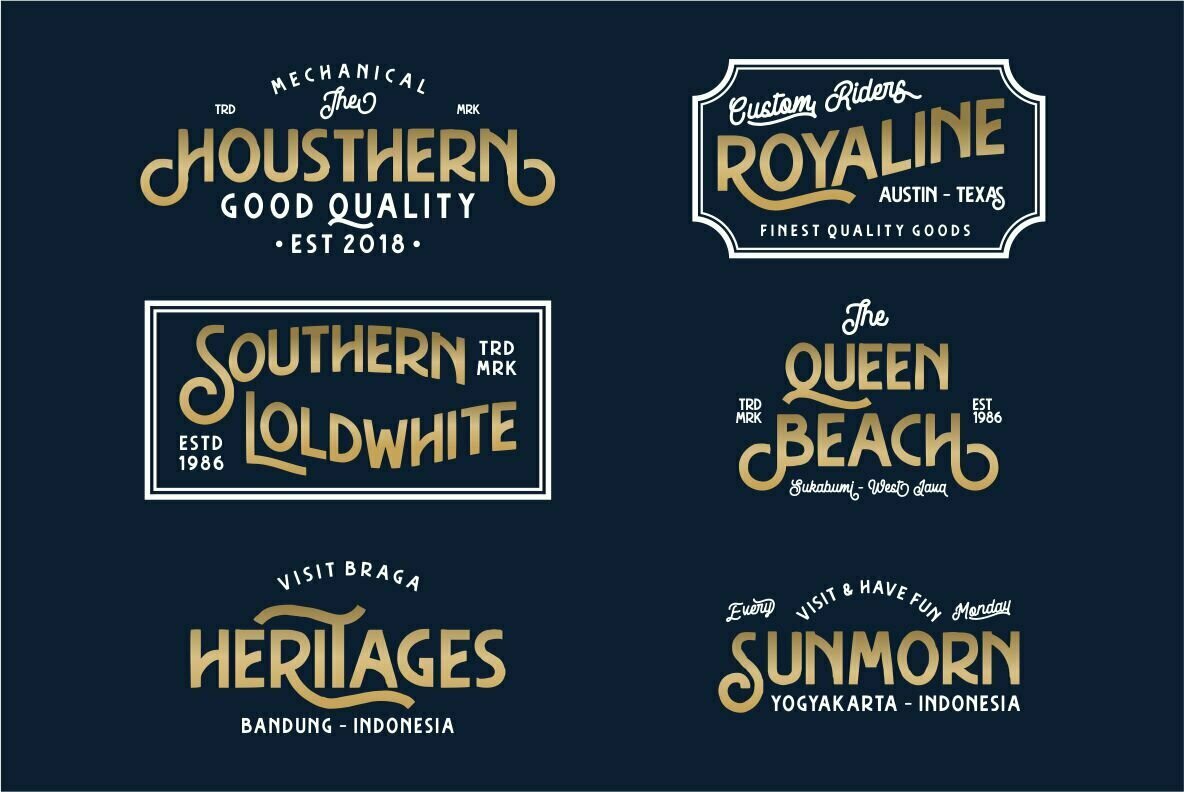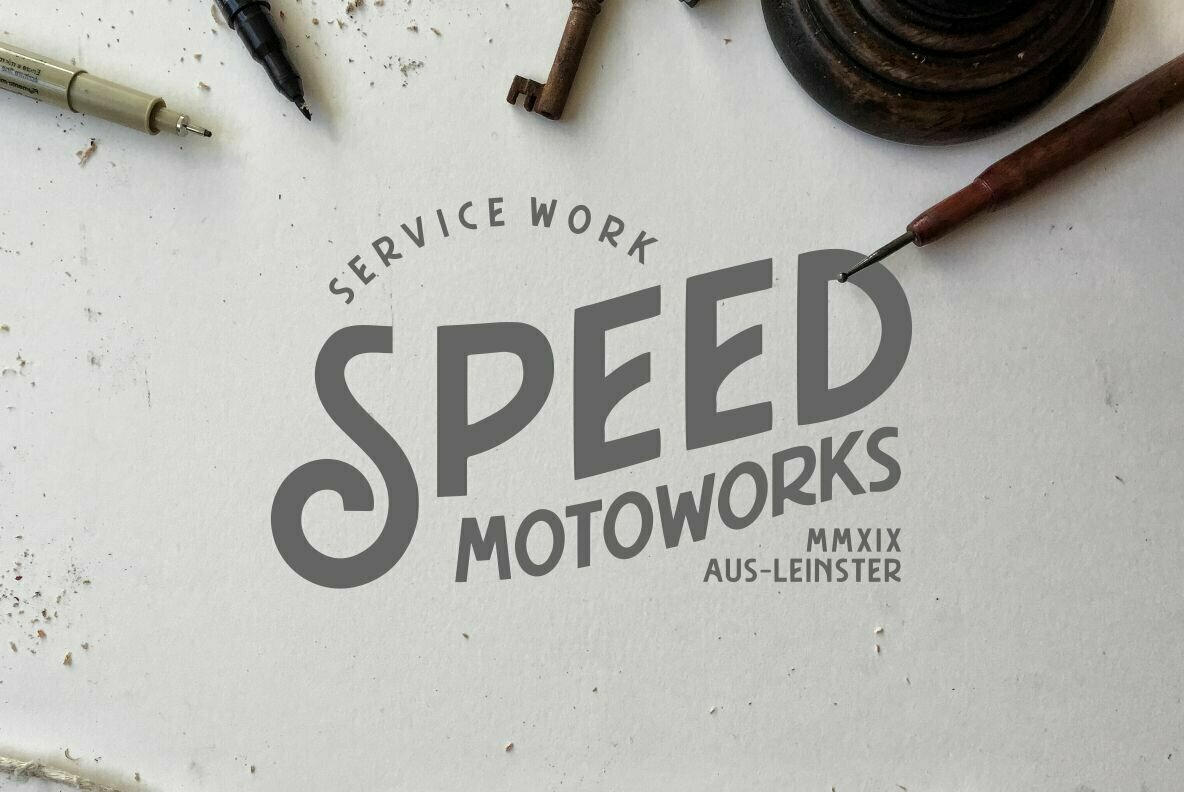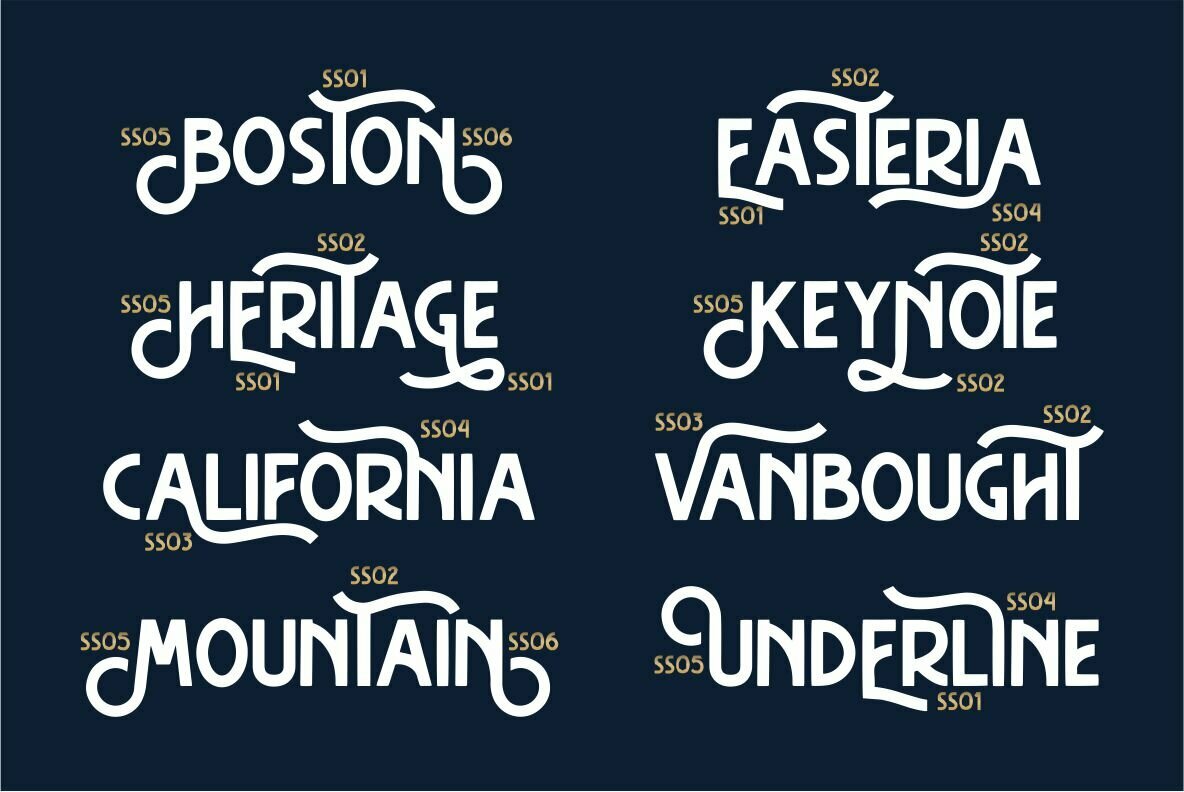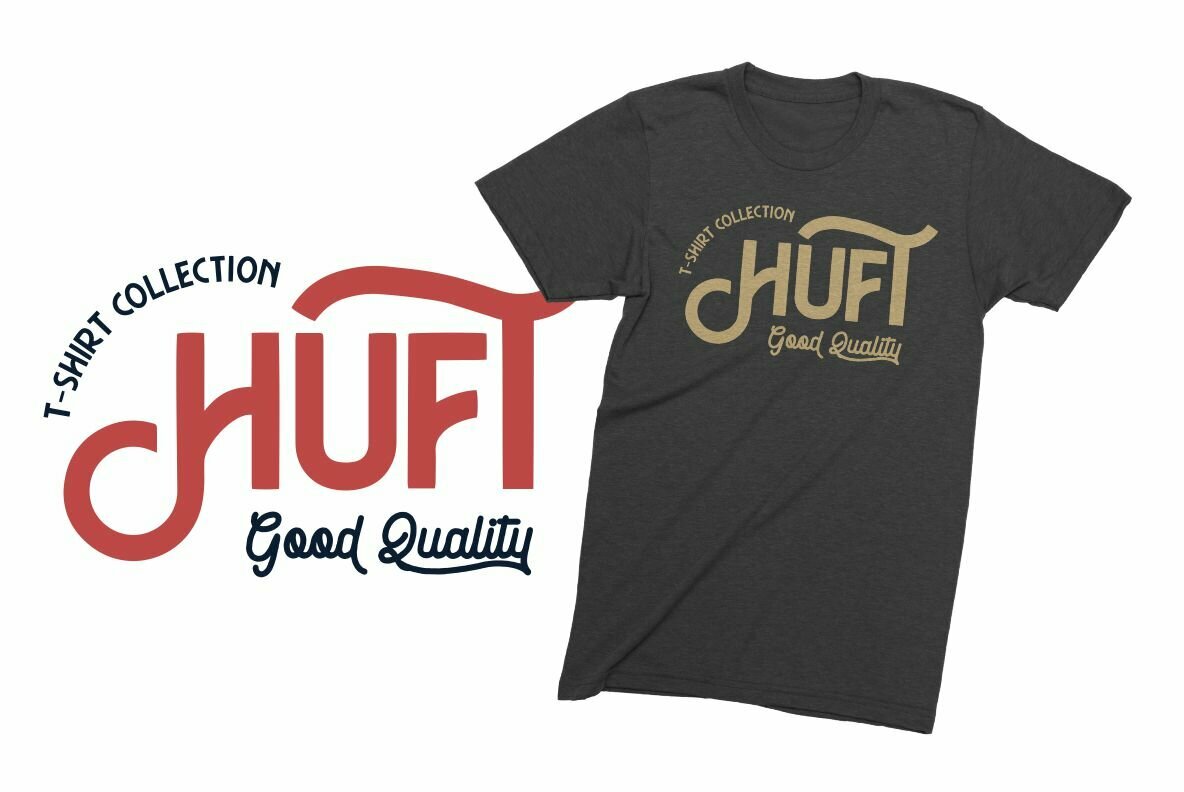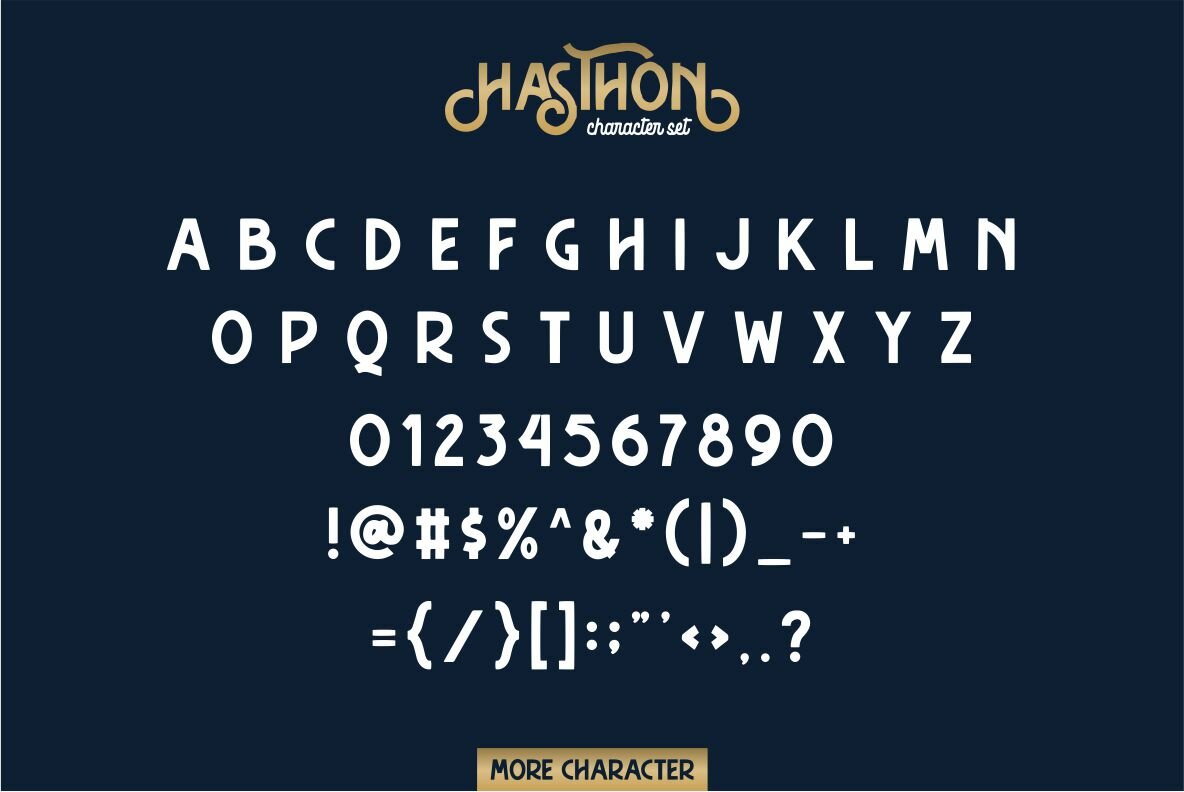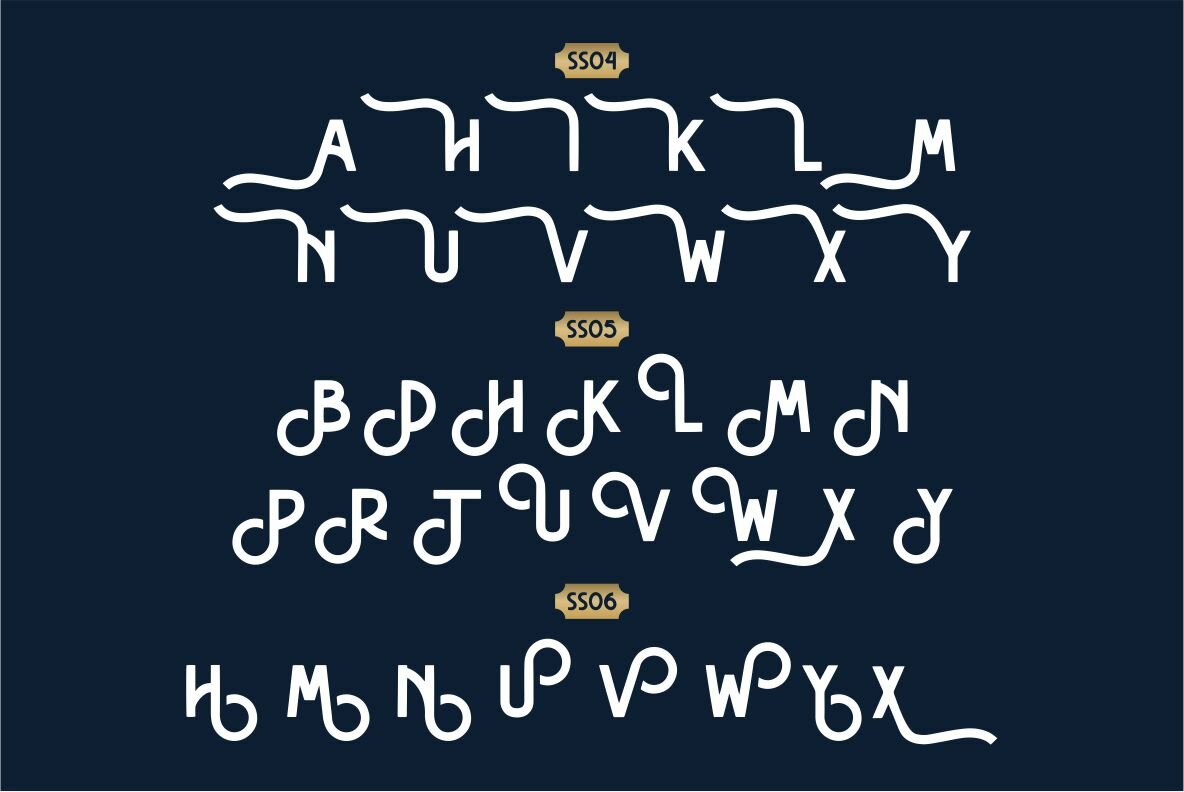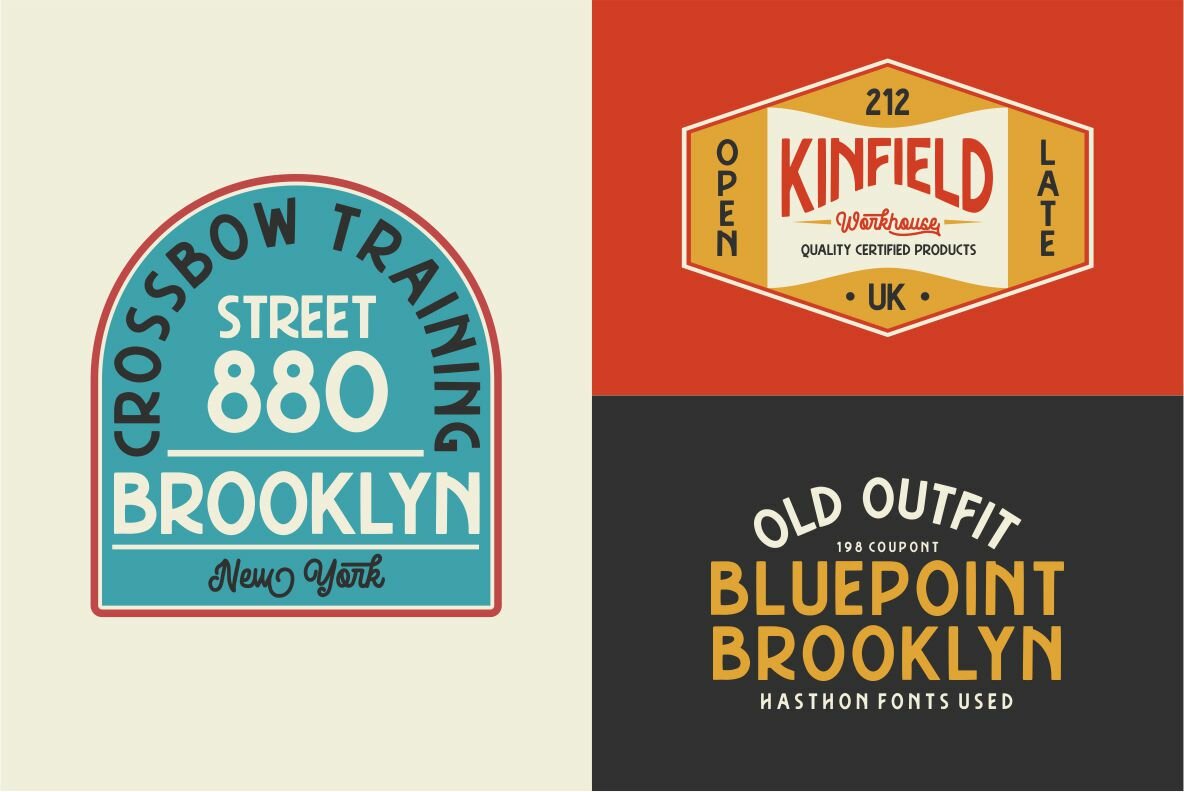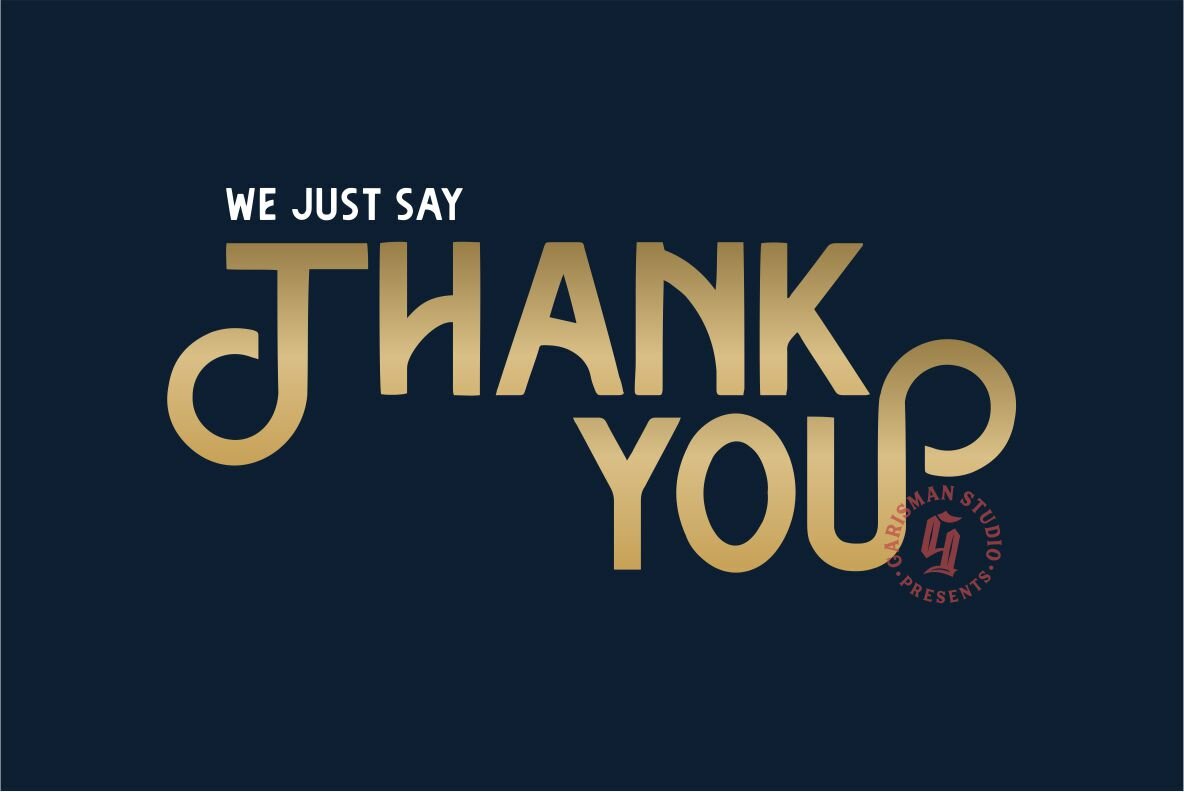
Hasthon Font
Hasthon
The Hasthon font captures the essence of vintage design with its classic, handmade aesthetic. Ideal for graphic designers seeking a nostalgic touch for logo-types, branding materials, and more, this font offers versatility for a variety of projects.Hasthon: Vintage Sans Serif with a Classic Appeal